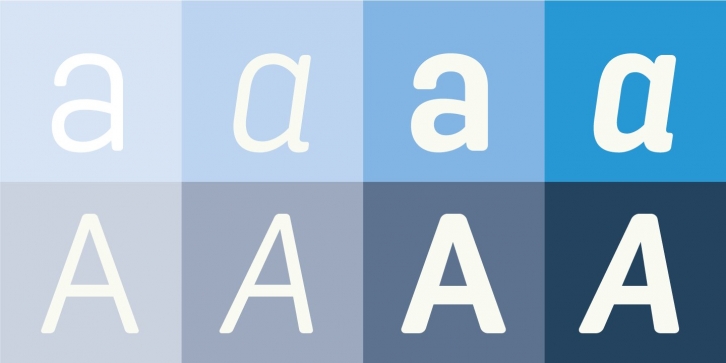
Antartida Rounded Essential is a sans serif with rounded terminals. Its simple, kind of neutral feeling is functional, clean and minimal; its rounded terminals make it friendly and warm. It is a family of 4 fonts: 2 weights and their italics.